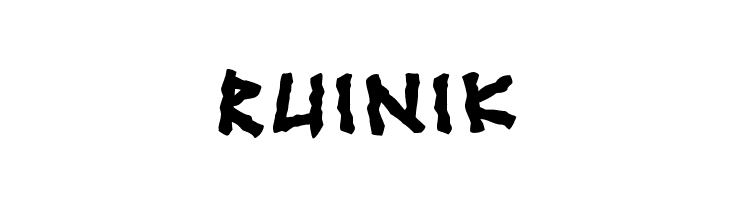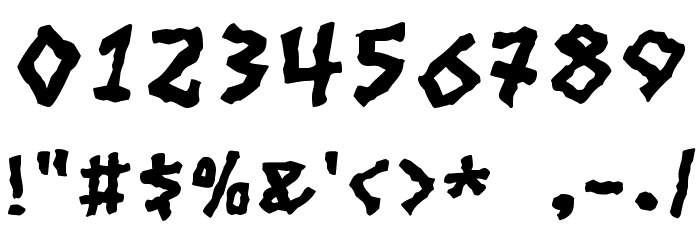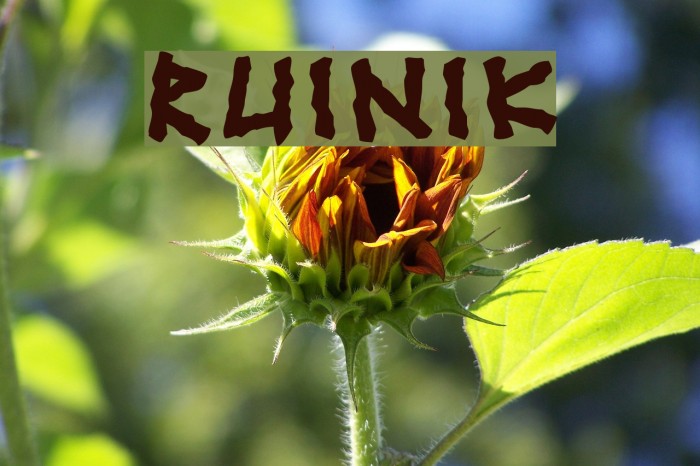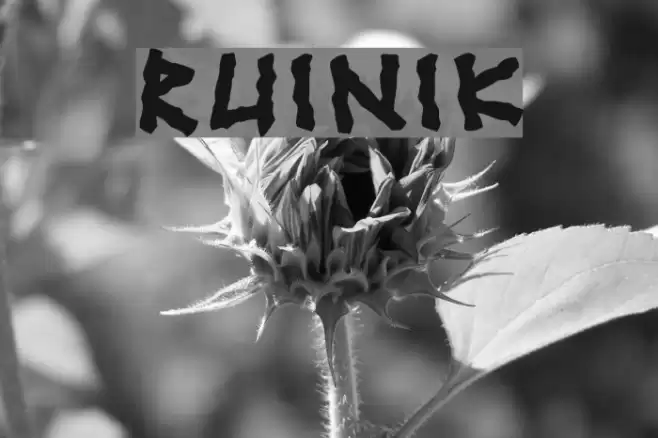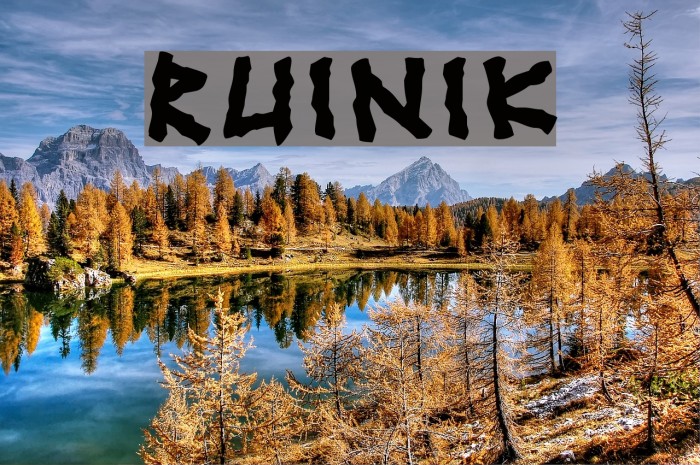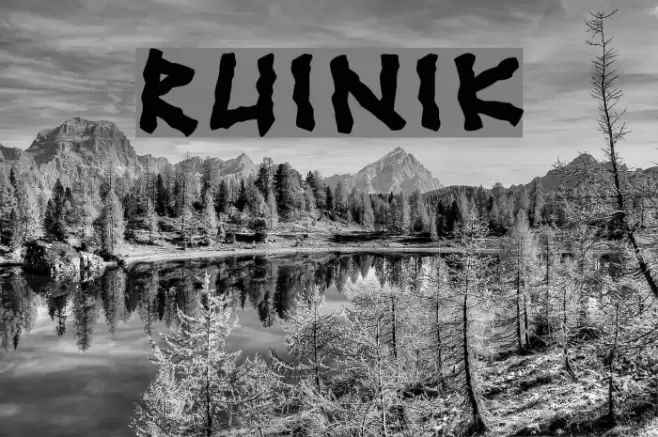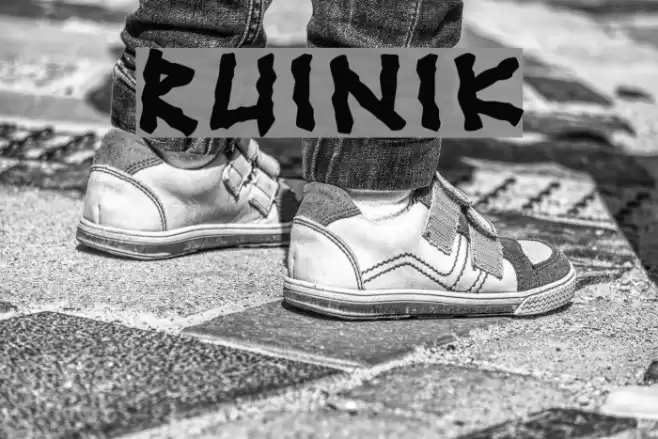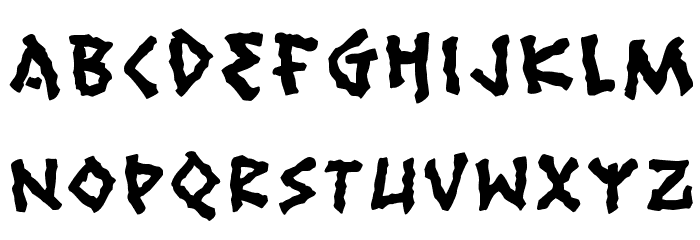
Ruinik Font
Ruinik Description
This font features a rugged and uneven style, reminiscent of ancient runic inscriptions. The characters are bold and jagged, giving a sense of raw energy and primal expression. Each letter has a unique, hand-carved appearance, with irregular edges and varying stroke thicknesses that add to its distinctiveness. The numerals and special characters maintain this theme, providing a cohesive look across all glyphs. This font is ideal for projects that require a touch of the primitive or mystical, evoking a sense of history and mystery.
| Proposed Projects | Perfect for fantasy-themed designs, historical recreations, game titles, and mystical branding. |